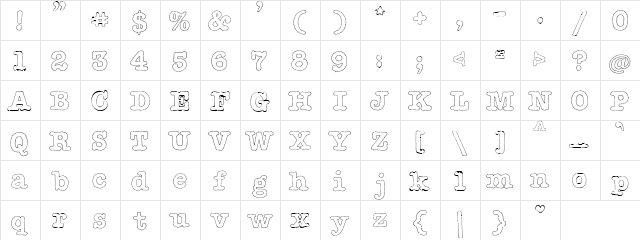
PC Chunky Dash Regular
Design Context for PC Chunky Dash Typeface
PC Chunky Dash is a composed and adaptable typeface that performs quietly and consistently across a wide range of design contexts.